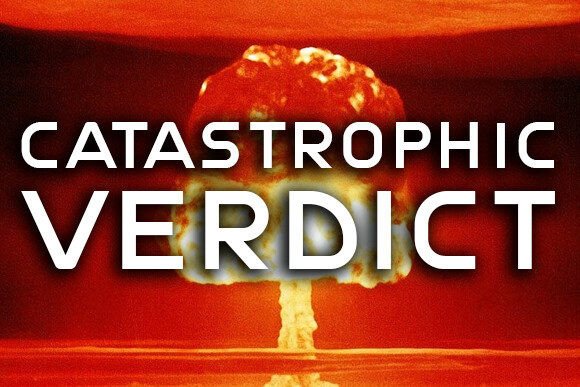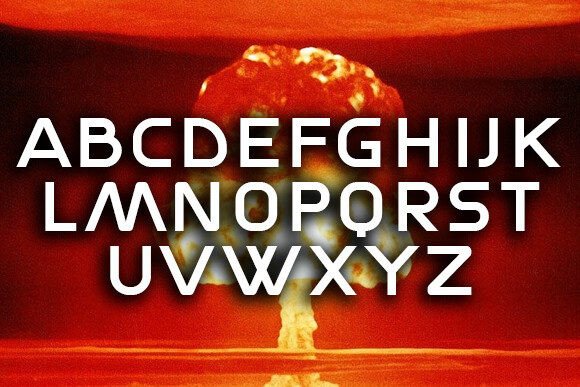
Introduction to Sage Mondial Font
Sage Mondial is an elegant Sans Serif typeface that will look awesome on any of Your designs.
Use this font on posters, flyers, and t-shirts .
Key Features of Sage Mondial Font
Why Choose Sage Mondial Font?